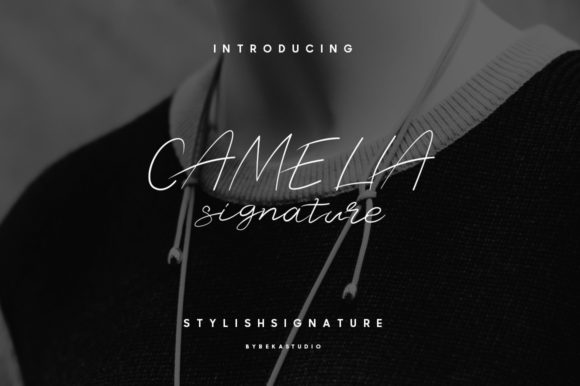
Discover the Elegance of Camelia Stylish Signature Font
Have you ever been in the middle of a design project, and suddenly, you’re stuck on finding the perfect font? I recall a recent experience where I was working on a wedding invitation design for a client, and I just couldn’t find a font that screamed elegance and sophistication. That’s when I stumbled upon the Camelia Stylish Signature Font. It was love at first sight! 💕
An Honest Review of Camelia Stylish Signature Font
What I Love About Camelia
• ✨ Elegant and classy design that instantly elevates any project
• ✅ Perfect for a variety of design needs, including branding projects, logos, wedding designs, social media posts, and more
• 💫 Supports OpenType features, allowing for creative freedom and customization
• 🎨 Beautifully crafted to add a touch of sophistication and handwriting taste to any design
While Camelia Stylish Signature Font is a stunning addition to any design project, there are a few minor considerations to keep in mind:
• ⚠️ Some users might find the font a bit too ornate for very casual or minimalist designs
• 🤔 It might not be the best choice for body text due to its script nature and potential readability issues in smaller sizes
The Inspiration Behind Camelia Stylish Signature Font
Camelia Stylish Signature Font was crafted with the intention of bringing a touch of elegance and personalization to design projects. While the specific designer behind Camelia may not be widely known, it’s clear that the font was created with love and attention to detail, aiming to capture the beauty of handwritten script in a digital format.
Q: Is Camelia Stylish Signature Font suitable for body text?
A: While Camelia is stunning for headings and titles, it might not be the best choice for body text due to its script nature and potential readability issues in smaller sizes.